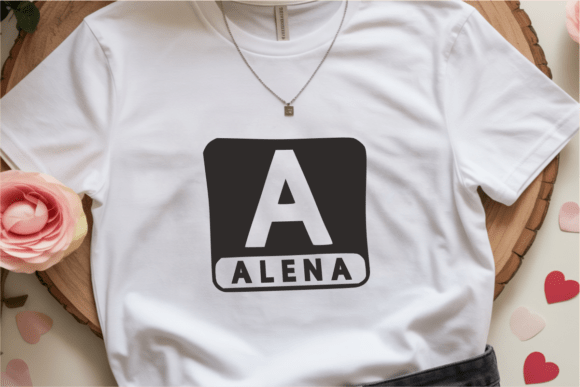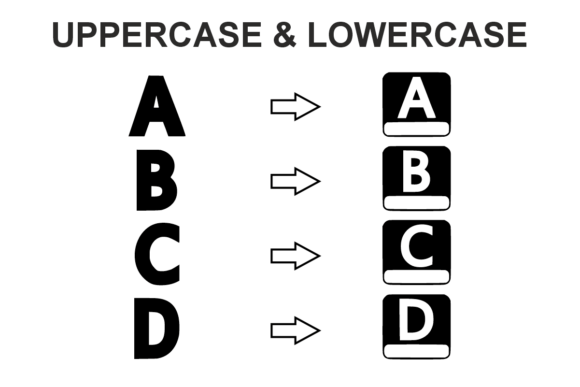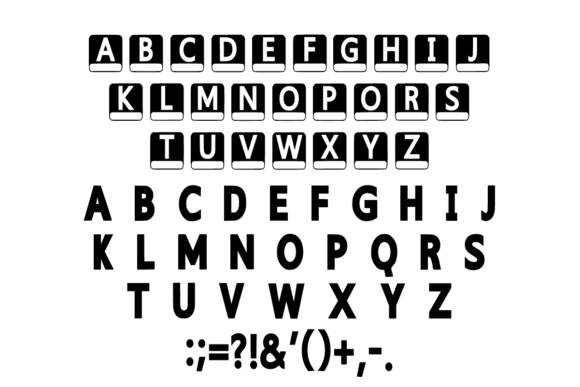
Introduction to Monogram School Font
Monogram School is a monogram-style decorative font with a rich educational feel.
Monogram School is a straightforward, clean, and robust decorative font designed for clarity and impact, making it ideal for educational and institutional use With its strong, geometric, and easily legible forms, this typeface is a practical and versatile choice for school branding, library signage, childrenโs educational materials, sports team logos, and digital interfaces.
Key Features of Monogram School Font